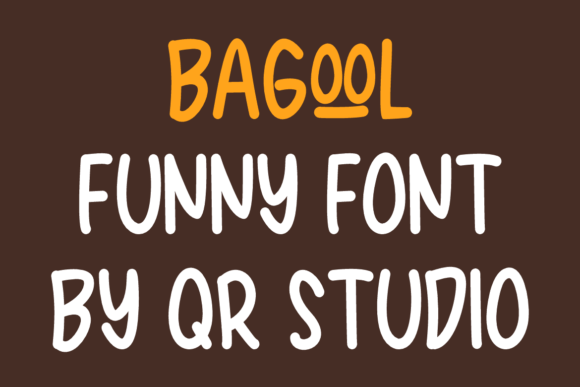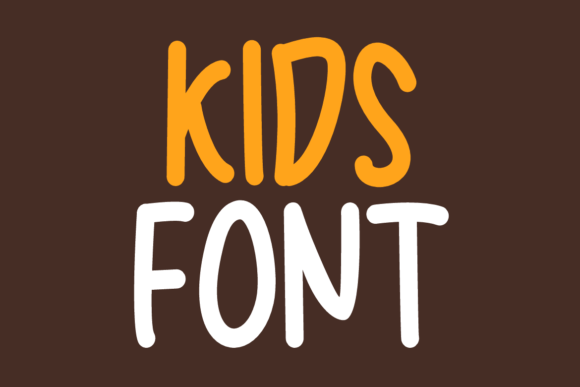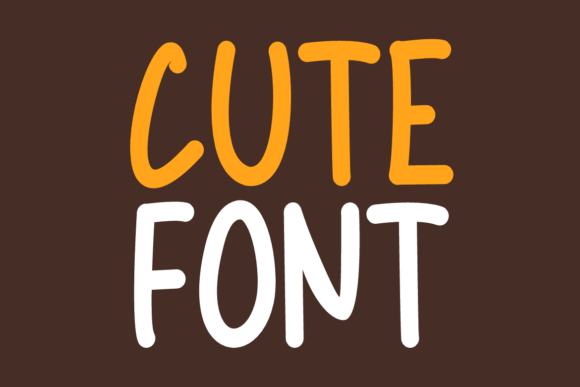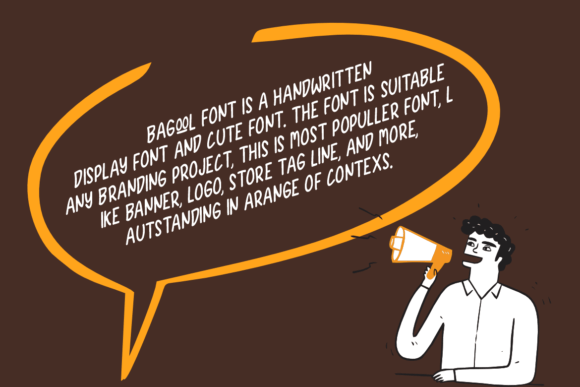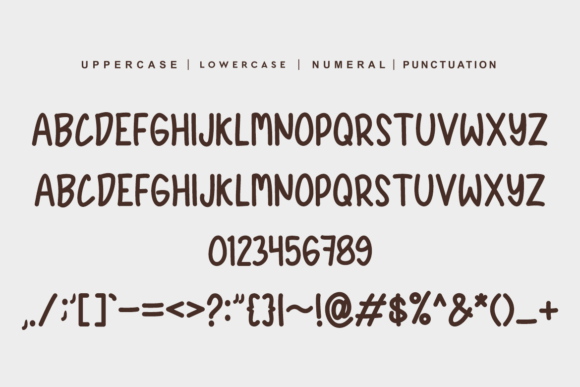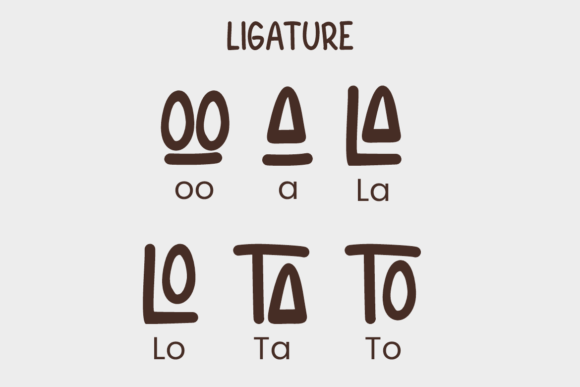
Introduction to Bagool Font
Bagool is a bold and authentic display font.
It is suitable for any branding project like logo, sport, invitations, social media, menus and more .
Key Features of Bagool Font